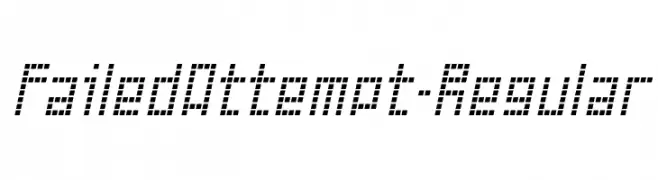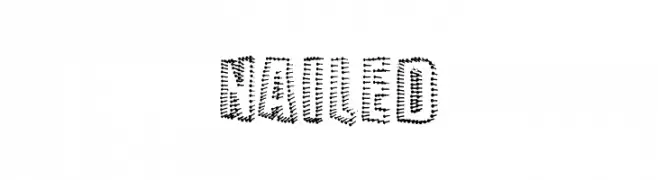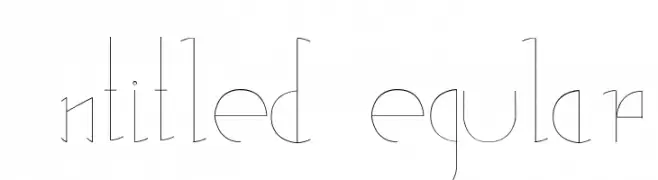
A playful, hand-drawn font with tall, narrow letters and a whimsical style.
A bold, textured font with a hand-painted, distressed look.
A playful, hand-drawn font with intricate patterns and doodles.
A bold slab serif font with a classic yet modern appeal.
A bold, playful font with a hand-drawn, dynamic style.
A bold, decorative font with a textured, stitched appearance.
A modern, geometric font with thin lines and a minimalist design.
A bold, distressed font with a vintage, hand-printed look.
An elegant, flowing cursive font with intricate loops and smooth connections.
A pixelated, digital-style font with a uniform grid-based design.